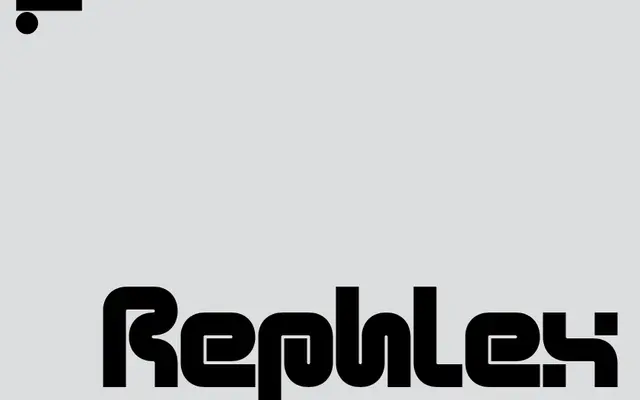
LL Rephlex
Lineto · Nico Schweizer, Luca Pellegrini · 1998
LL Rephlex specimen from Lineto
A brutalist geometric display face built on a 4x4 stroke grid, expanded in 2021 with nearly 2000 ligature pairs that blur the line between typeface and pattern generator.
Originally drawn by Nico Schweizer in the late 1990s using bold continuous strokes on a rigid grid, LL Rephlex was revived in 2019 when TATE ETC. commissioned Lineto for a new headline face. Luca Pellegrini reset the design, tightening the internal logic, making strokes more continuous and curvy, and building out an elaborate ligature system of close to 2000 connected letterform pairs. The result sits somewhere between an ornamental typeface and a sophisticated graphics tool, drawing on precedents from Mimmo Castellano, Maxim Zhukov and the NASA worm logo.
Built entirely from continuous strokes on a strict 4x4 grid, LL Rephlex sits firmly in the display category as a geometric, brutalist face. Its near-2000 ligature pairs and ornamental density make it unsuitable as body text and position it closer to a pattern-generating graphics tool than a conventional typeface.